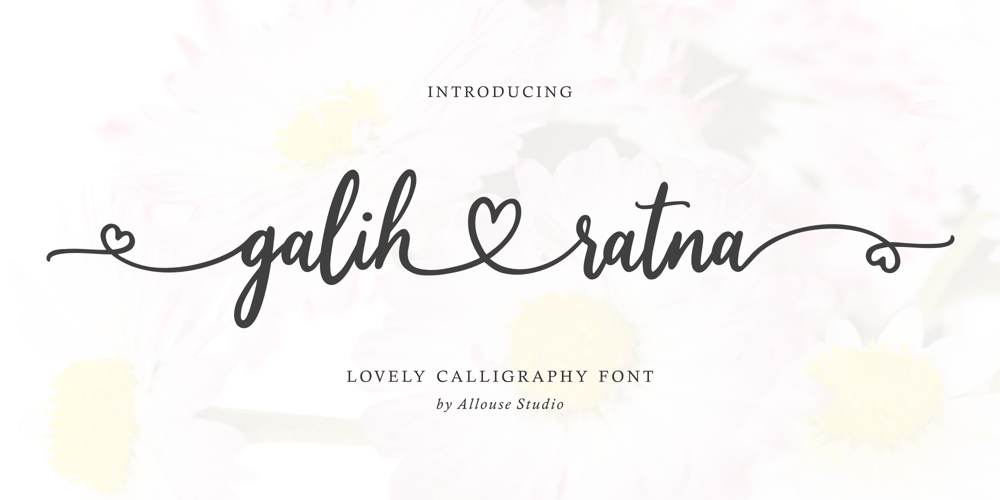
Galih Ratna Font Family was designed by Fachrizal Yusuf and published by Allouse Studio. Galih Ratna contains 1 styles and family package options. Galih Ratna A Lovely Calligraphy FontGalih Ratna is perfect for any titles, logo, product packaging, branding project, megazine, social media, wedding, or just used to express words above the background.Galih Ratna also come with beginning and ending swash, stylistic set and Multi-Lingual Support.We highly recommend using a program that supports OpenType features and Glyphs panels like many of Adobe apps and Corel Draw, so you can see and access all Glyph variations.Enjoy the font, feel free to comment or feedback, send me PM or email. Thank You!